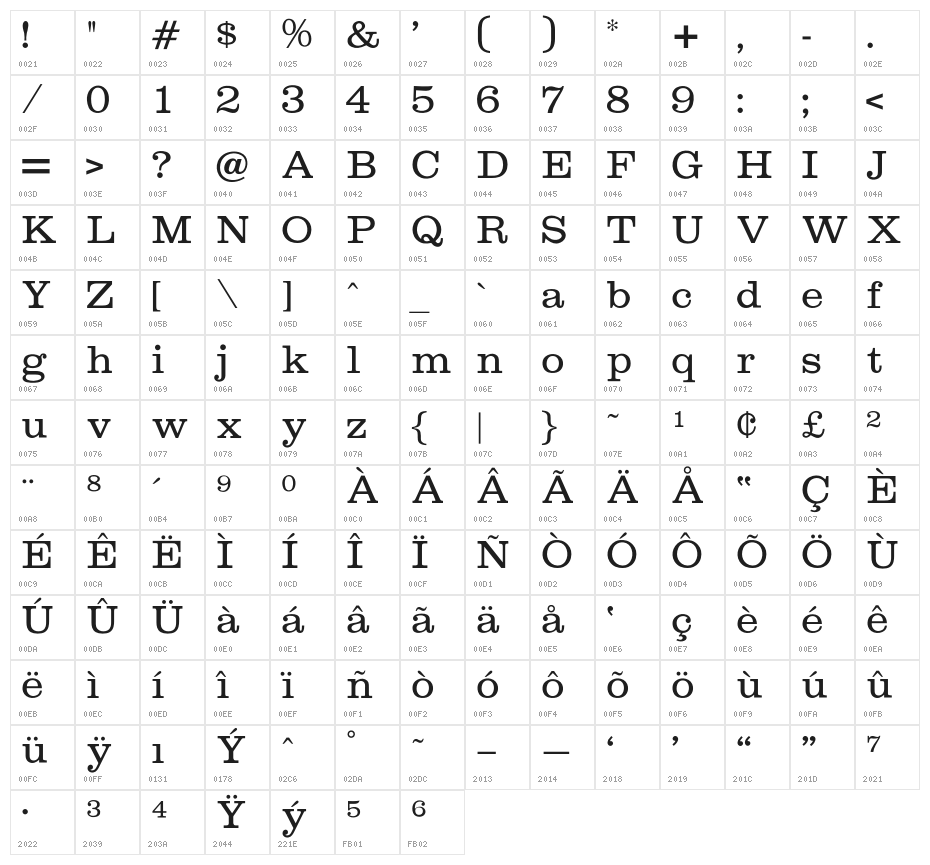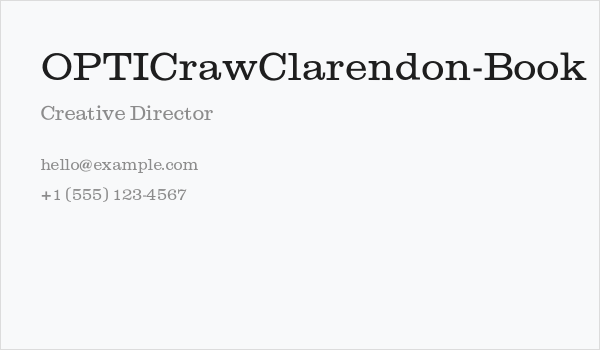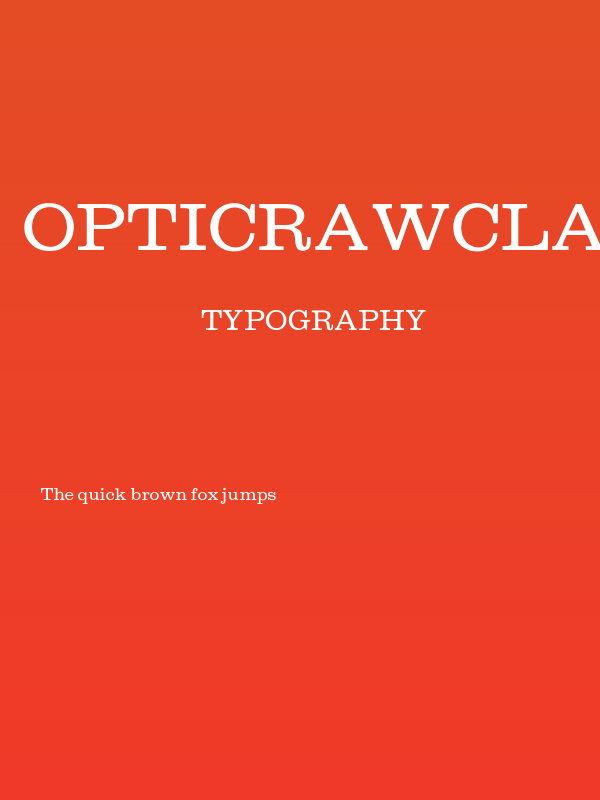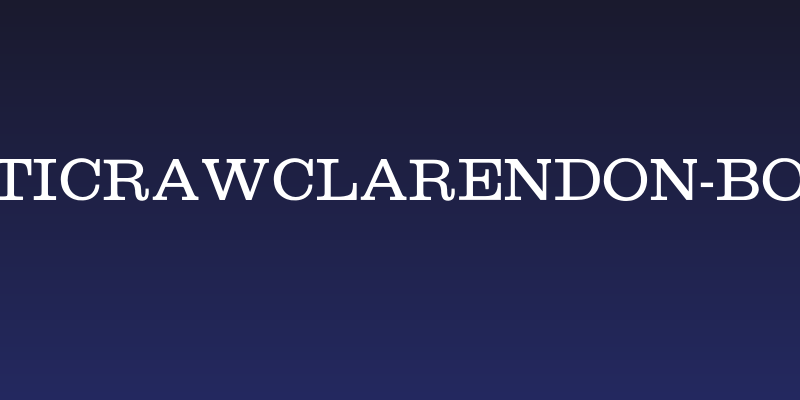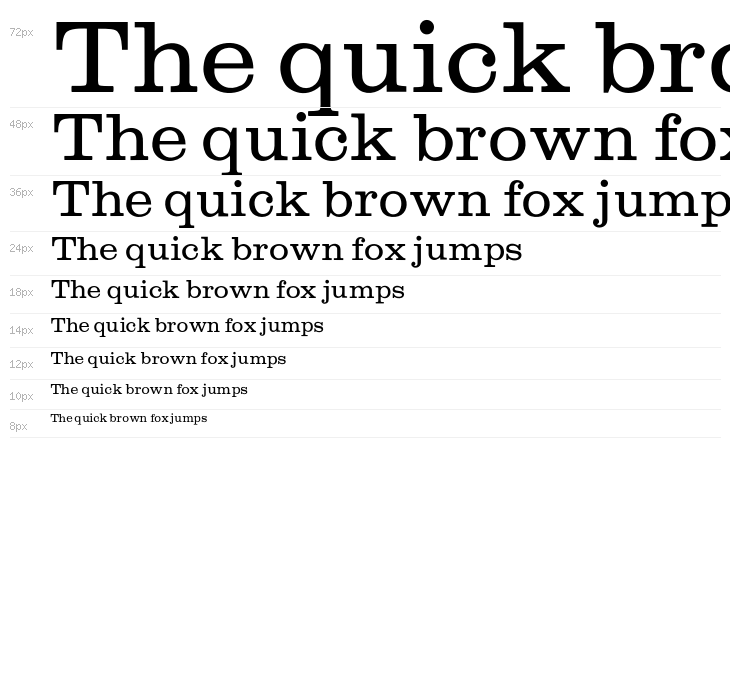
OPTICrawClarendon-Book Font
OPTICrawClarendon-Book Description
This font exhibits a classic and robust slab serif design, characterized by its thick, block-like serifs and strong vertical stress. The letterforms are well-defined with a balanced weight distribution, making it highly legible. The uppercase letters are bold and commanding, while the lowercase letters maintain a consistent style with slightly rounded edges. The numerals are clear and proportional, ensuring readability in various contexts. Special characters are distinct and harmonize well with the overall design, providing versatility for different types of content.
| Proposed Projects | Ideal for editorial design, branding projects, signage, and any application requiring a strong, authoritative typeface. |